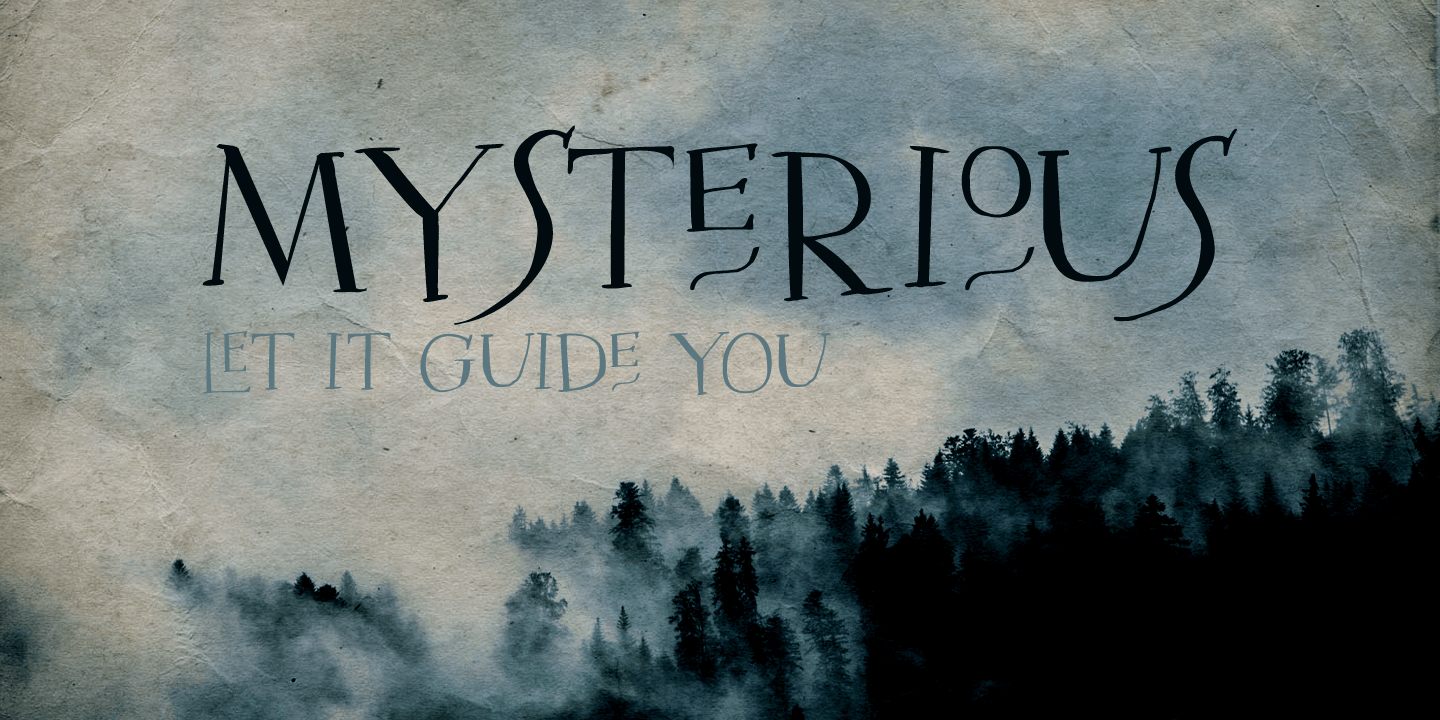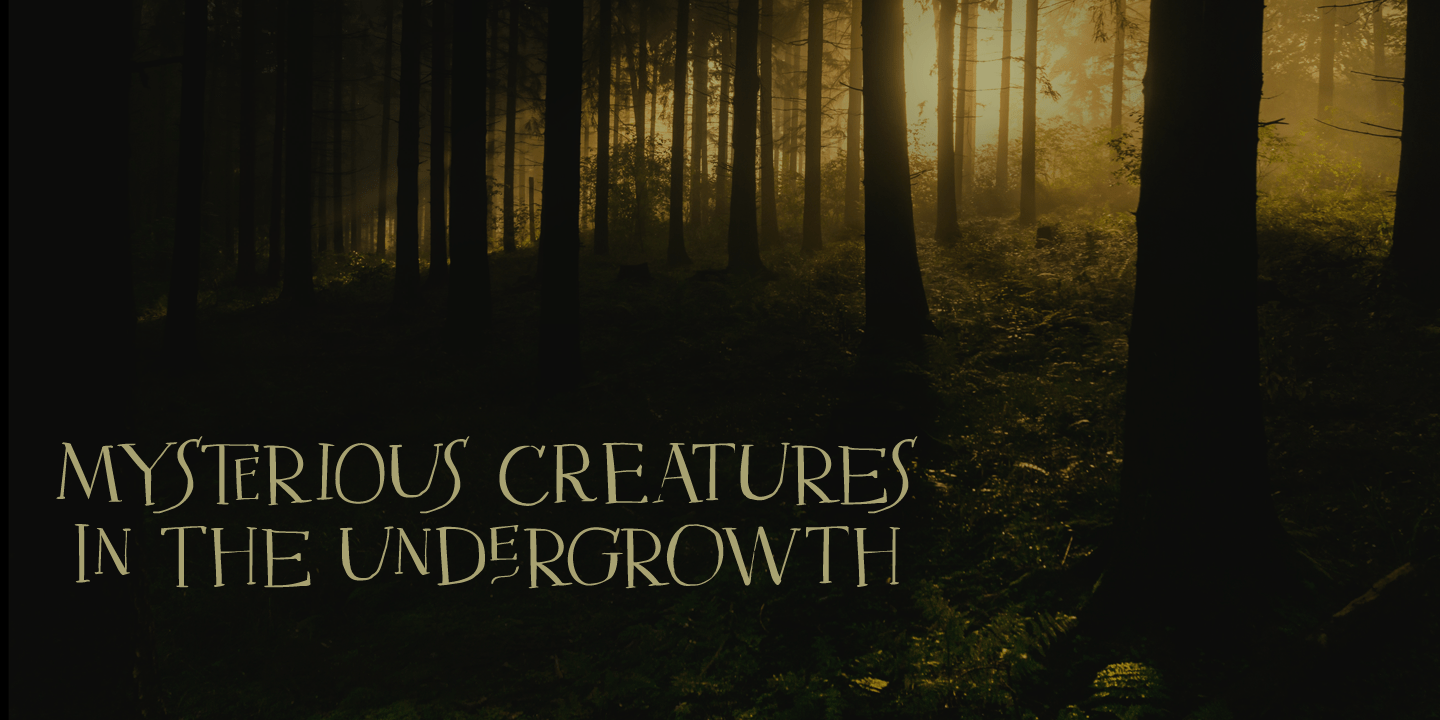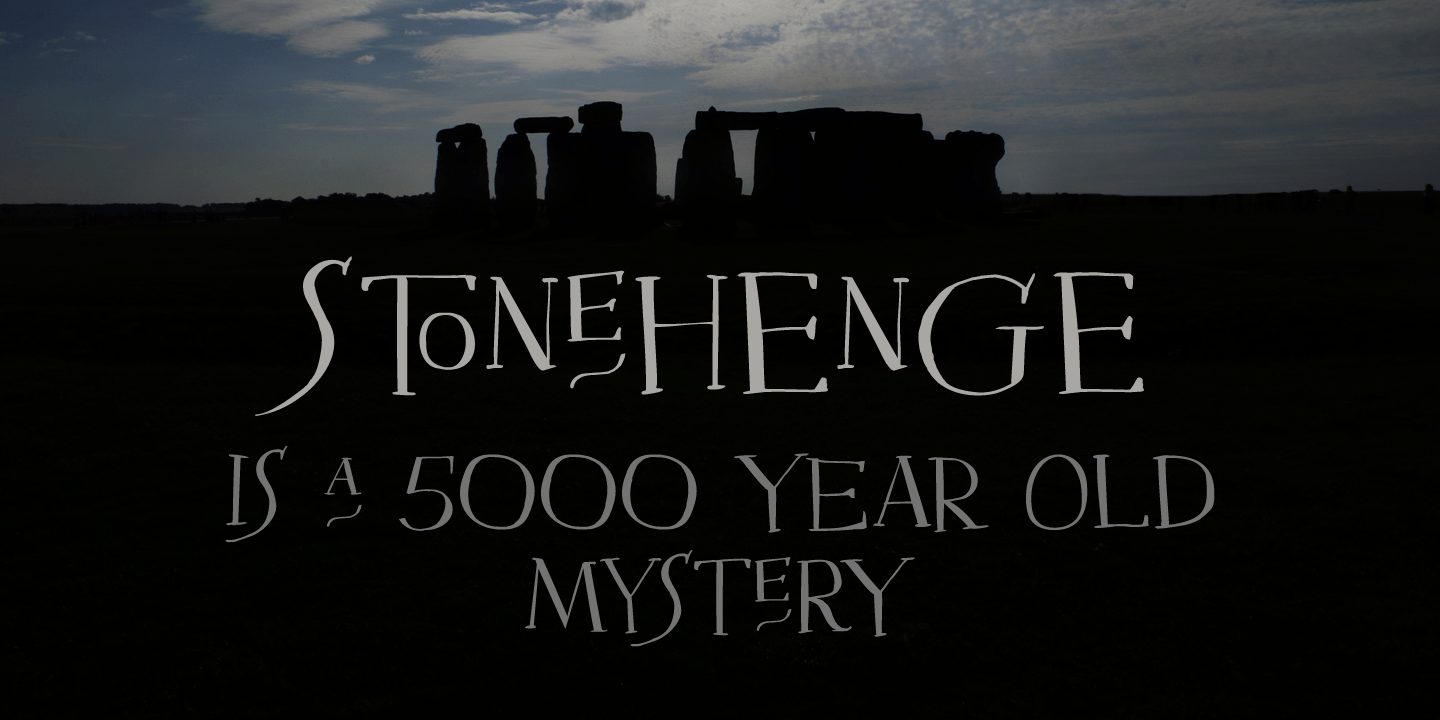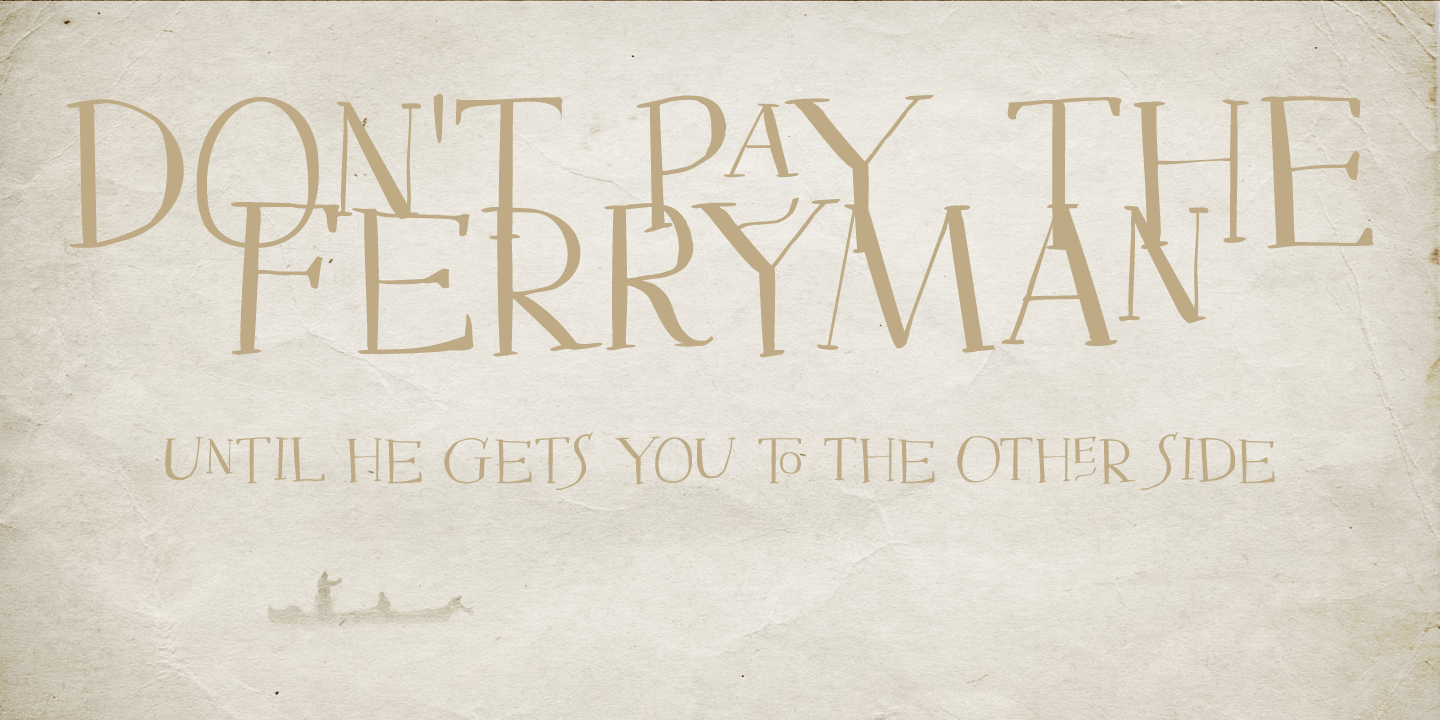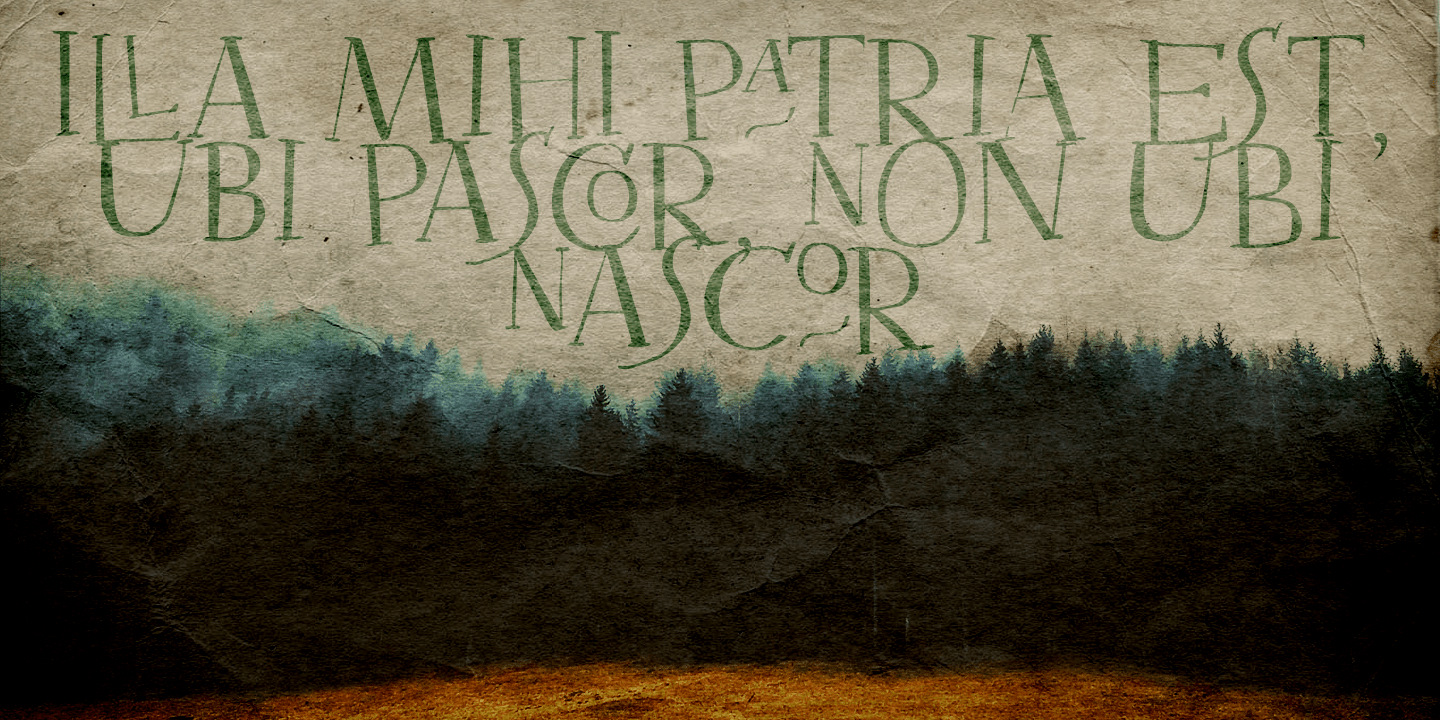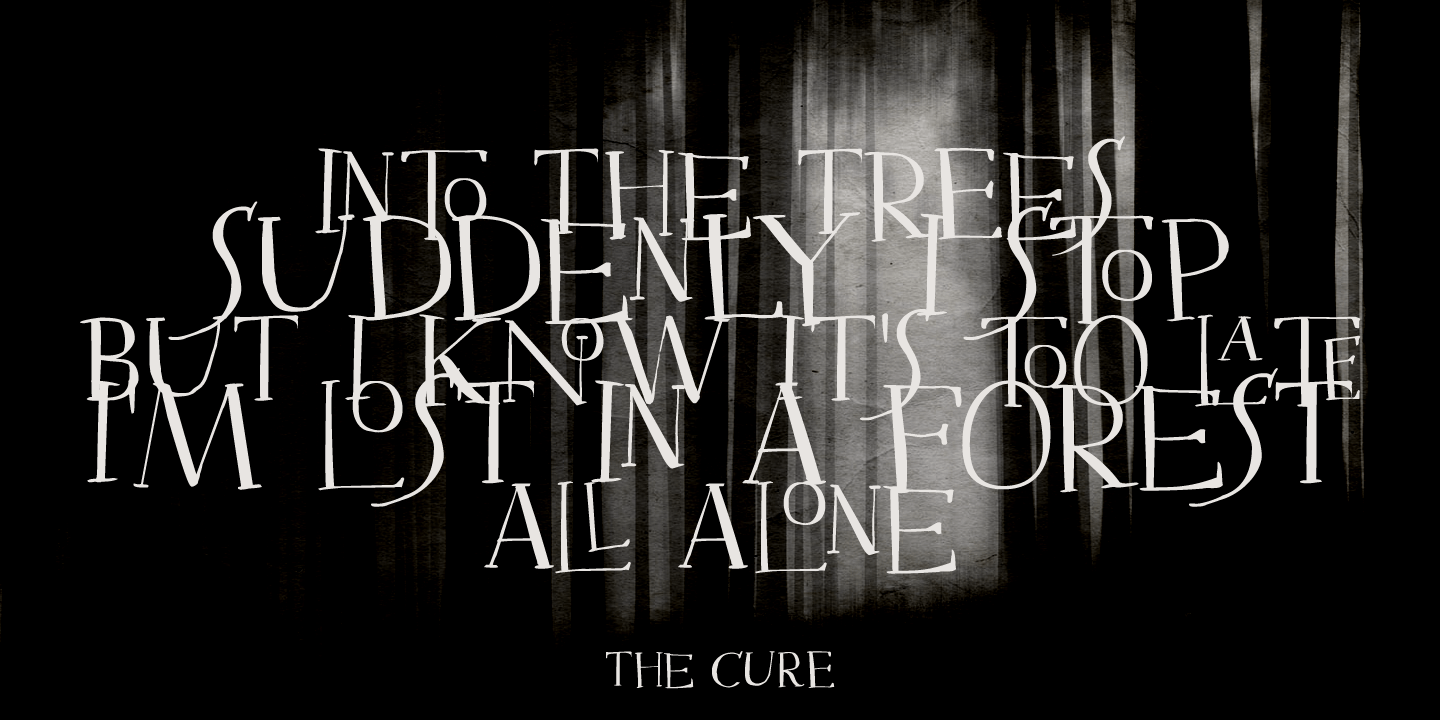
Mysterious
Mysterious is a bit of an unusual font. It looks old fashioned, but it comes with cool stylistic alternates, it could be a didone, but it is not (really), it looks formal, but it is rather scary.
Mysterious was more or less based on the titling pages of 17th century atlases and my own twisted imagination. It comes with a whole bunch of ligatures and stylistic alternates, plus extensive language support.